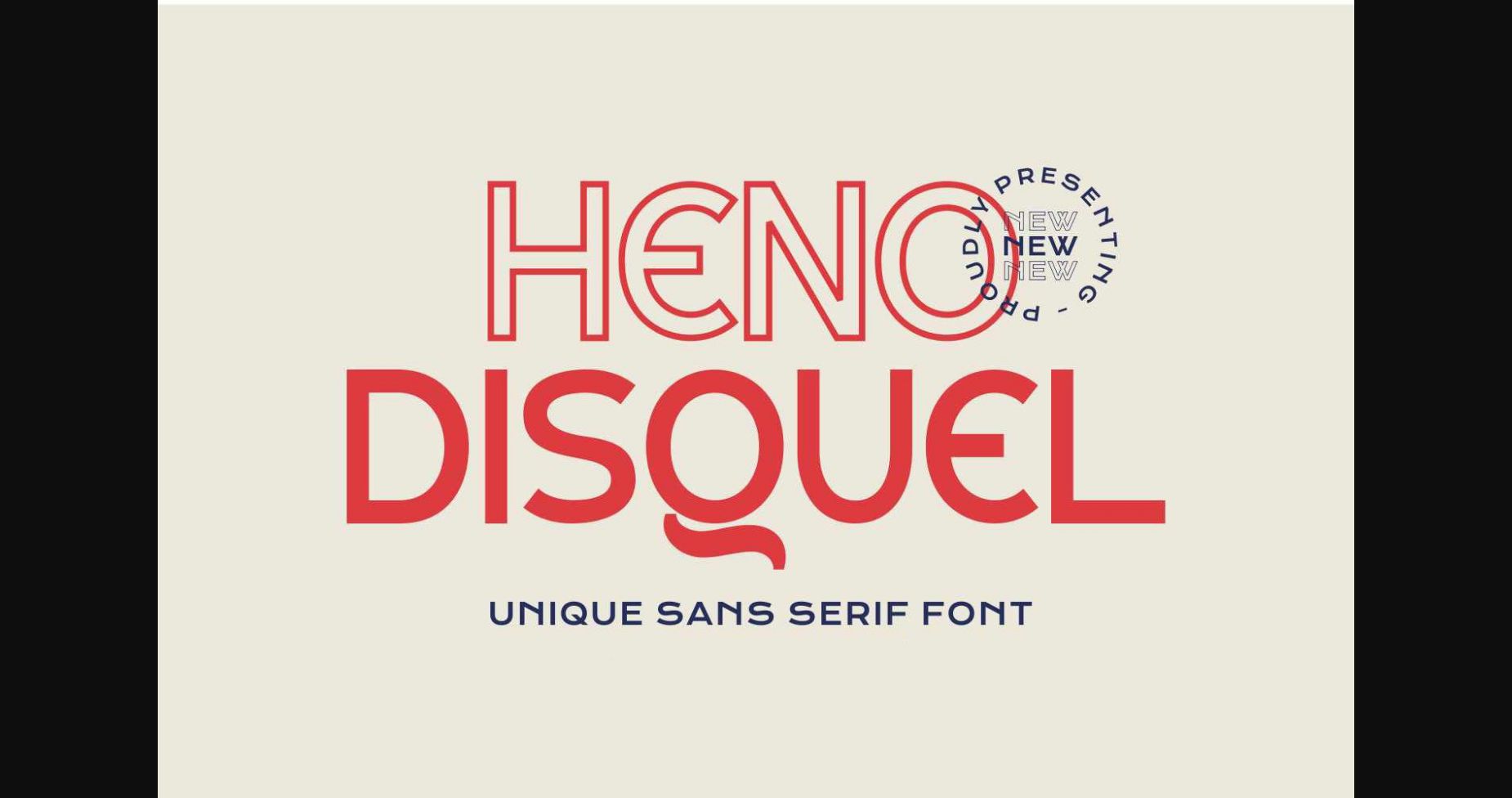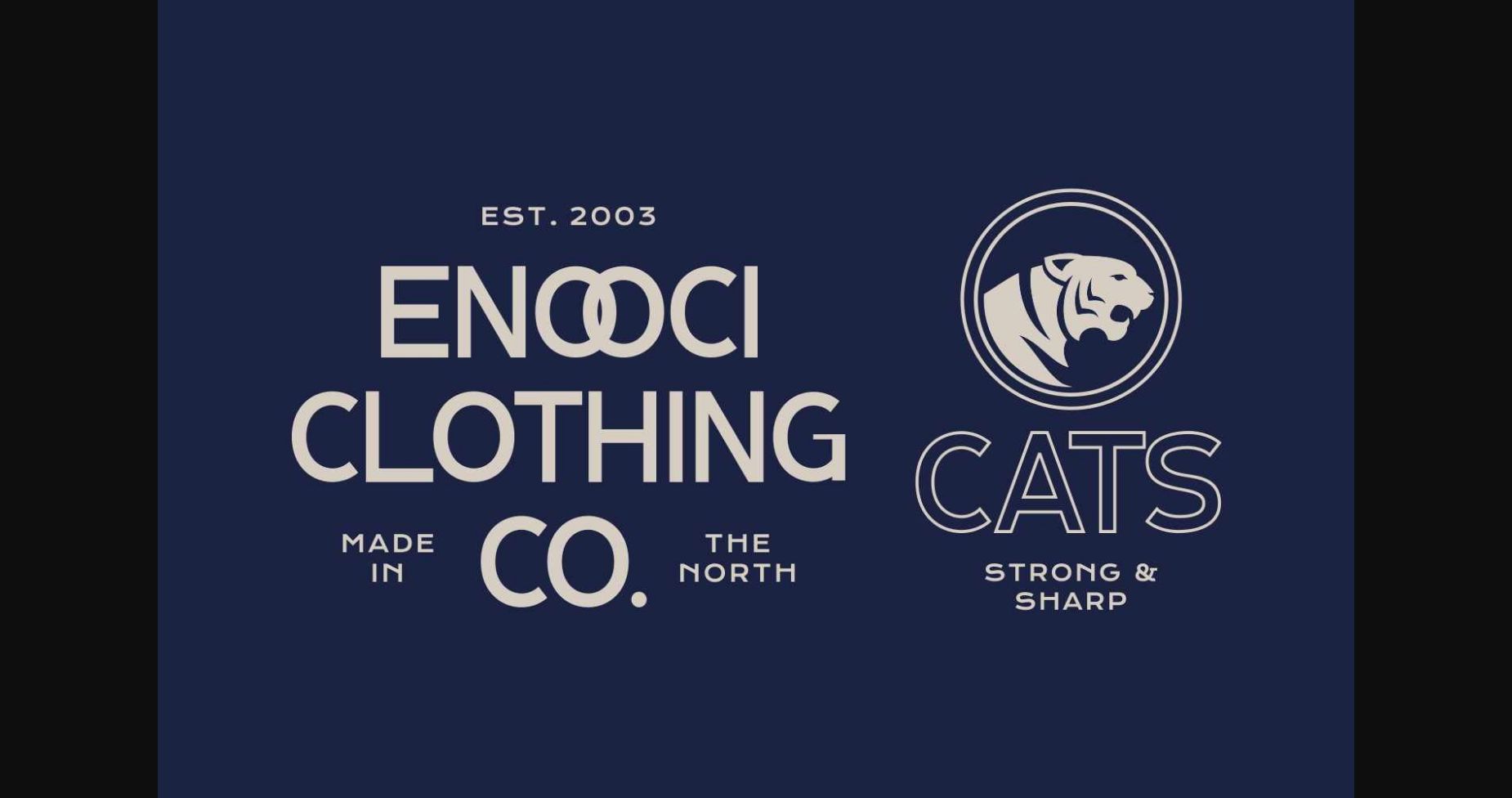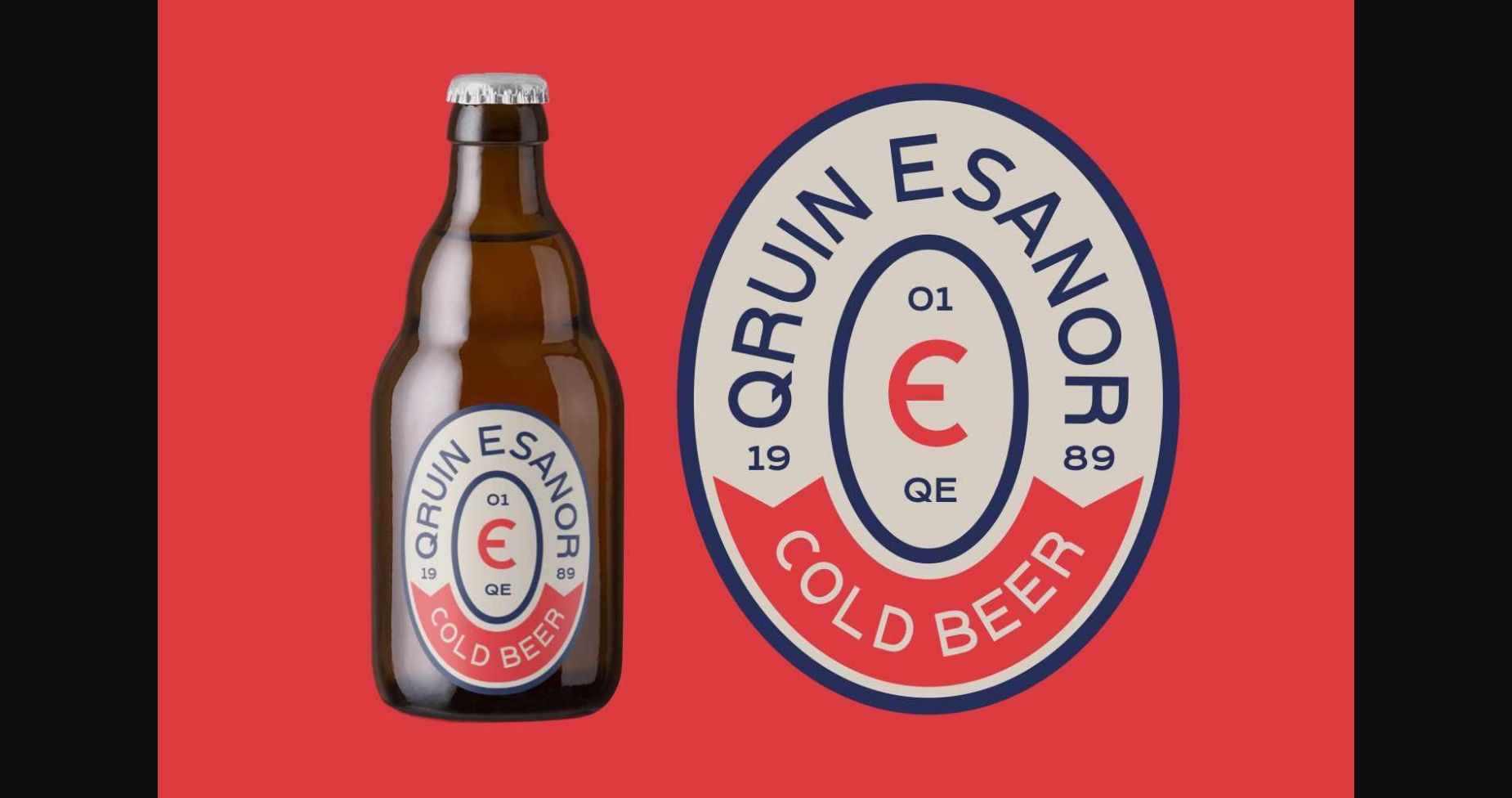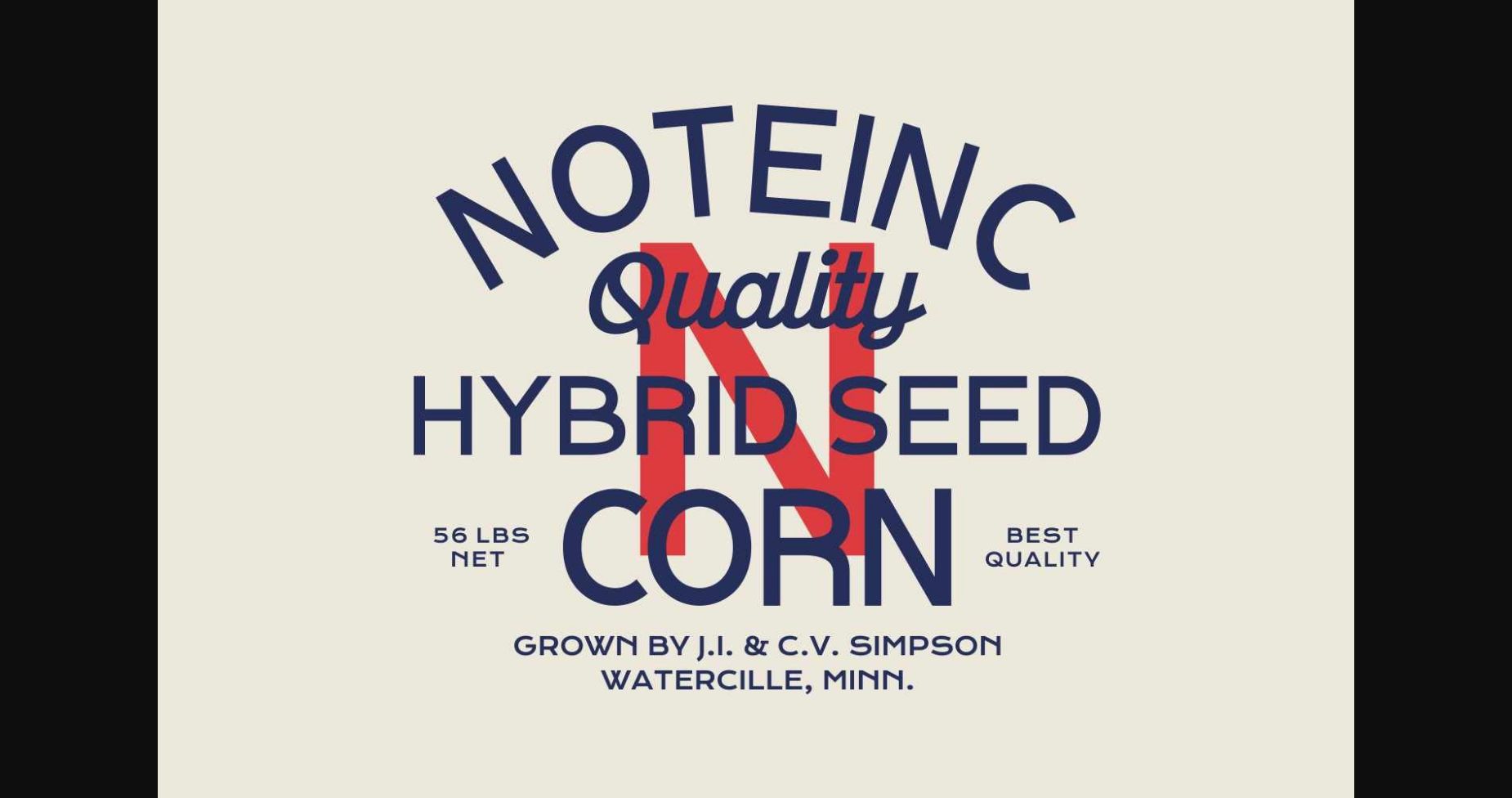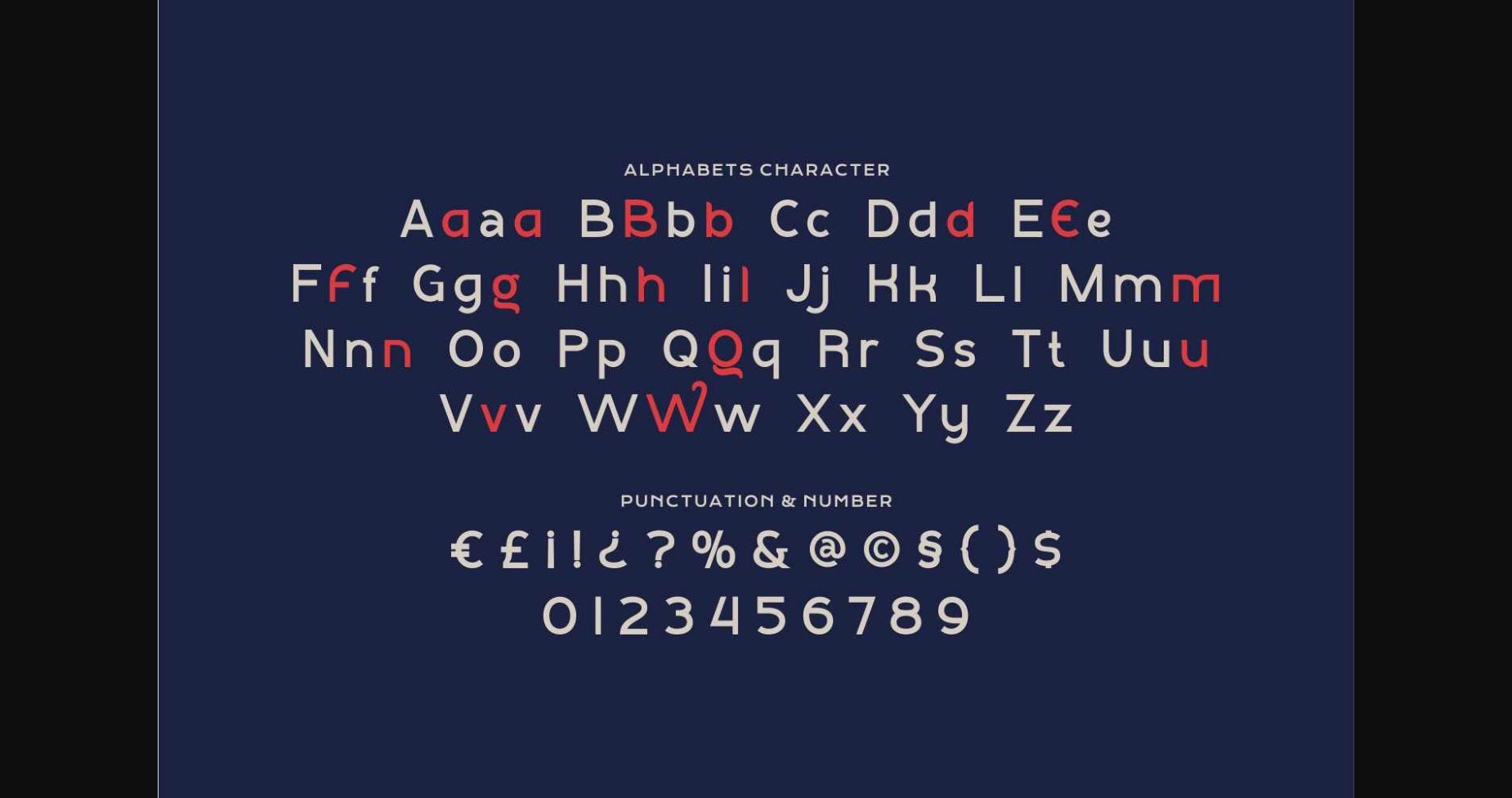
Heno Disquel Font
About Heno Disquel Font
Heno Disquel is a sans serif font with visual elegance, smooth curves, and beautiful ligatures. A versatile font that works in both large and small sizes. This font is suitable for a wide variety of projects such as logos, invitations, branding, magazine, photography, card, product packaging, product mockup, mugs, quotes, posters, labels, signatures, editorials, websites, social media, and much more.